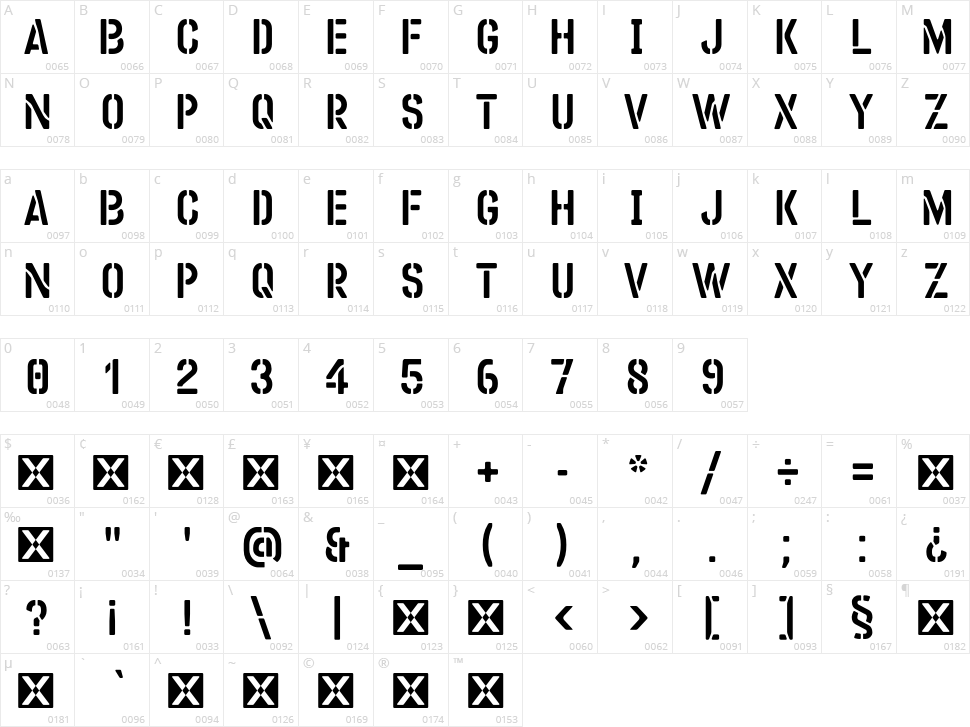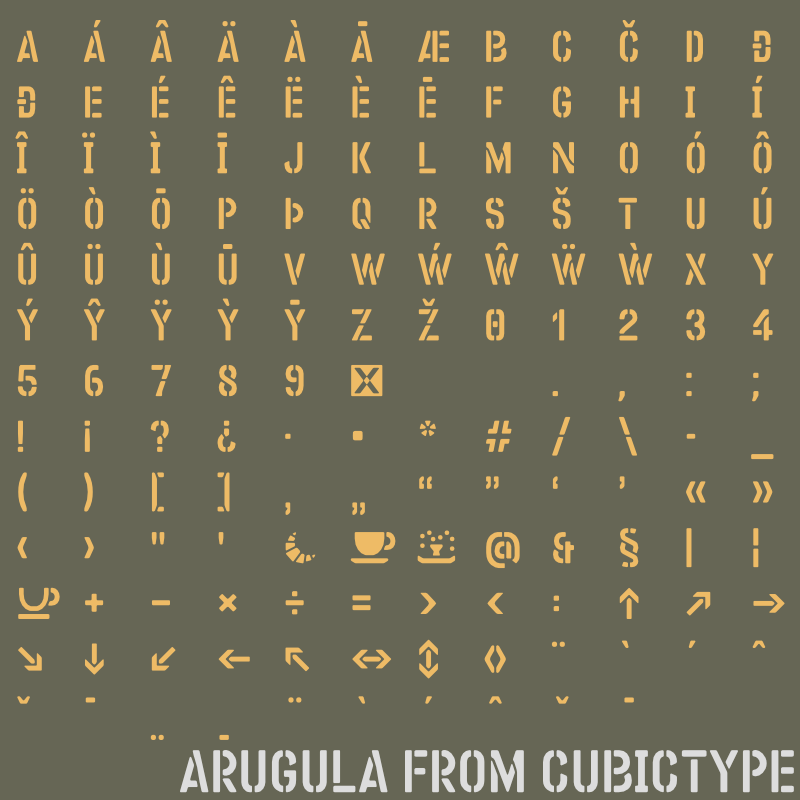
Arugula
Note of the author _Arugula_ is a military-style stencil sans-serif in
quite narrow proportions.
It is developed from found stencilling on the side of a case of rocket ammunition.
At more than 150 glyphs, the repertoire is enough to support Welsh, Slovene, and basic English.
Accents in the font can be placed onto letters and numbers using the Unicode combining feature.
For wayfinding, arrows are supplied, and markers for
croissant, coffee, and fountain.